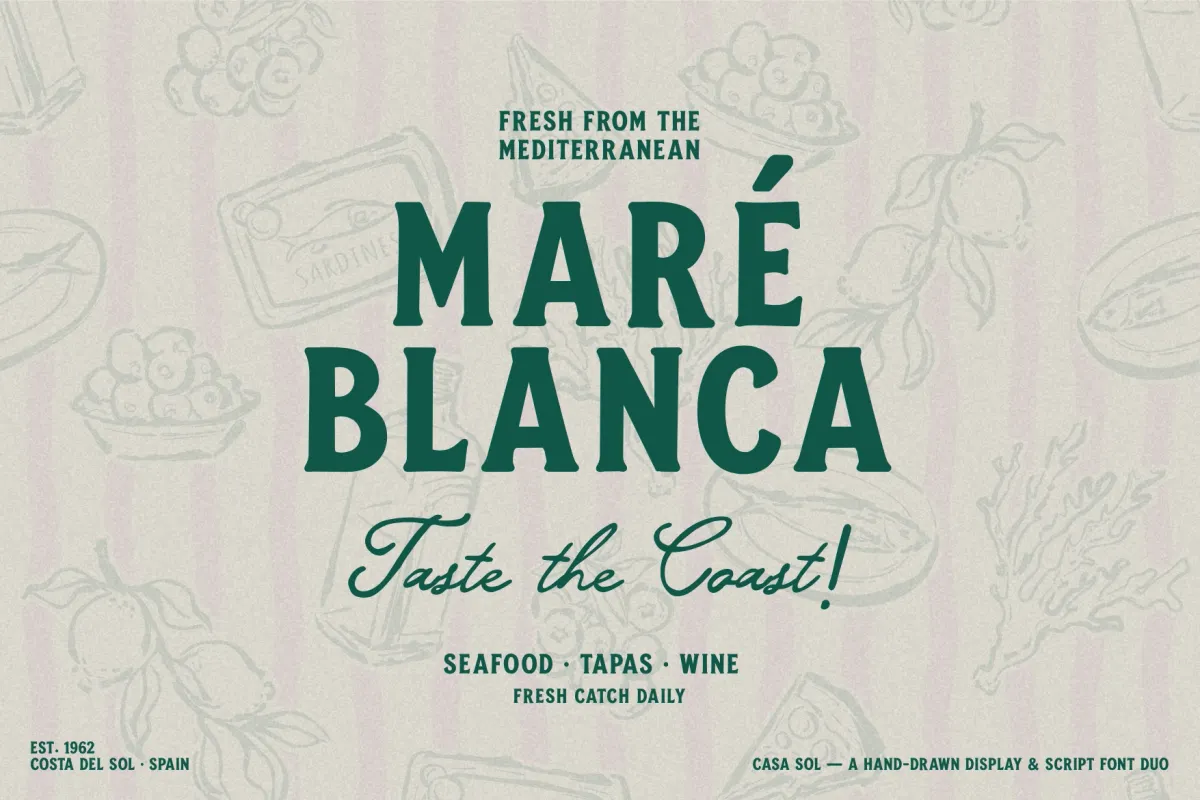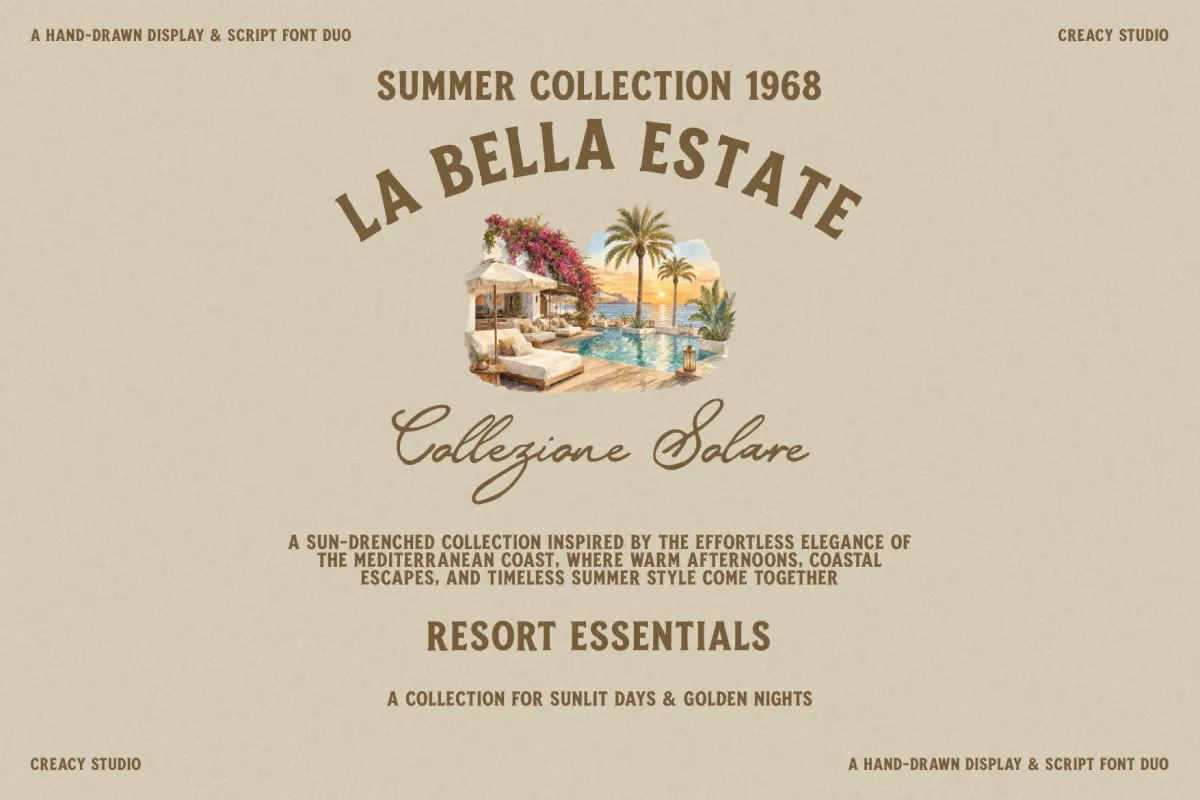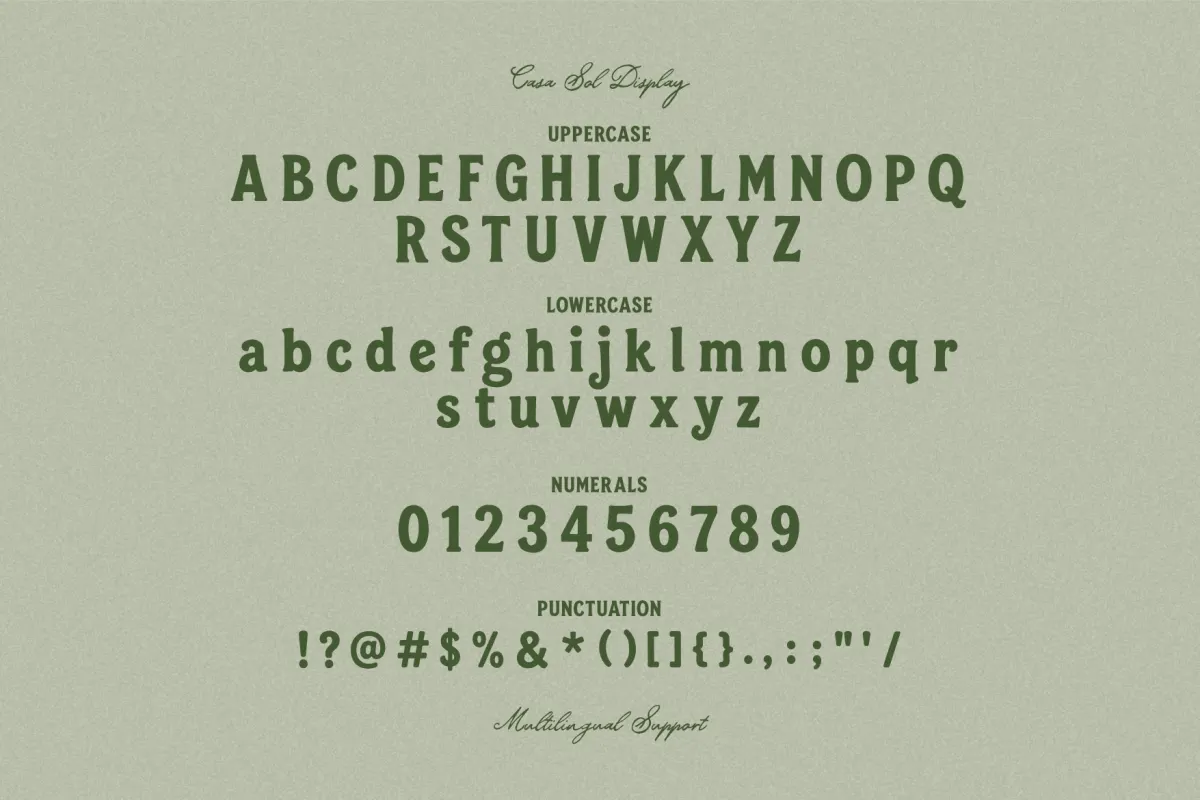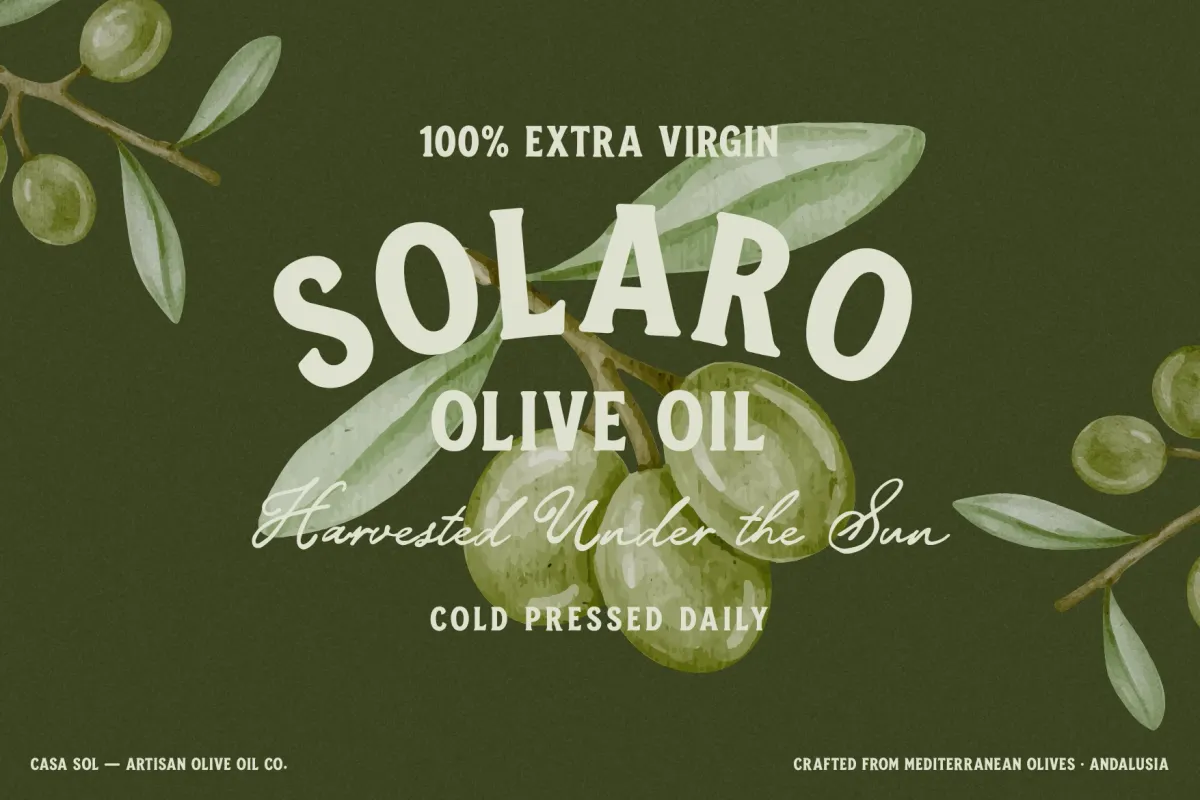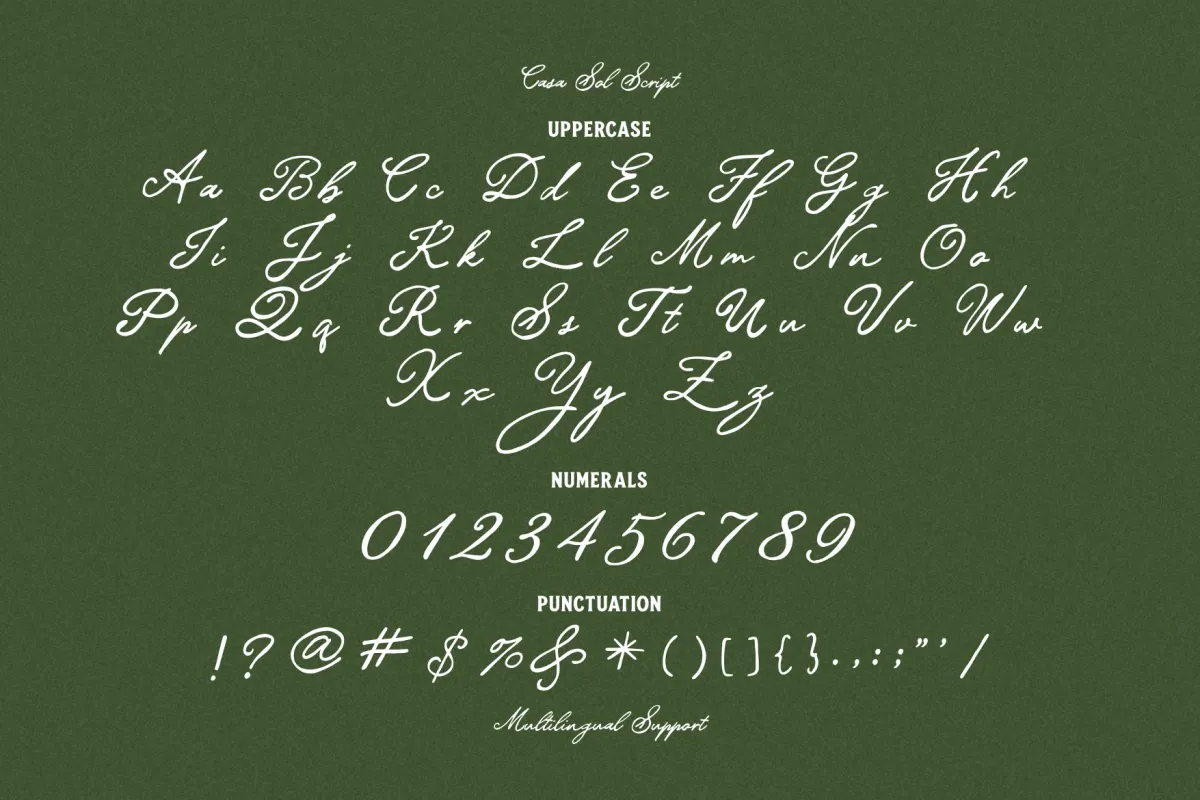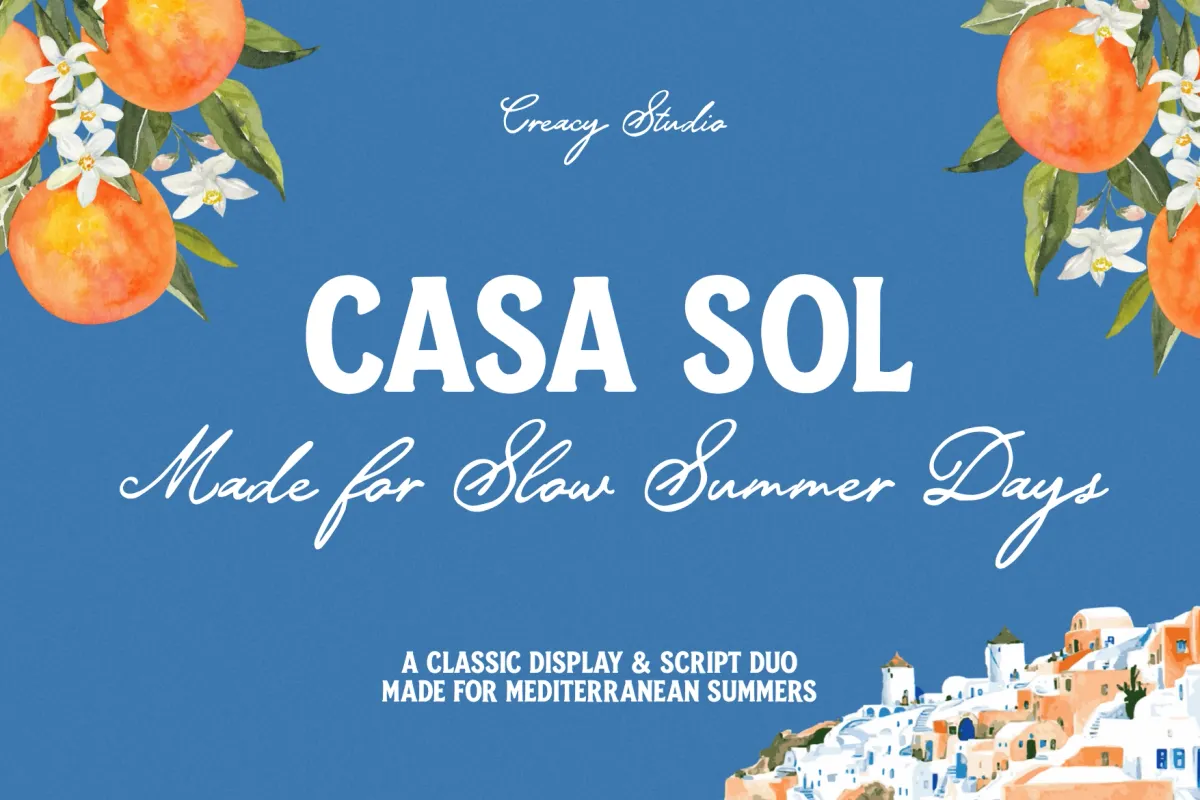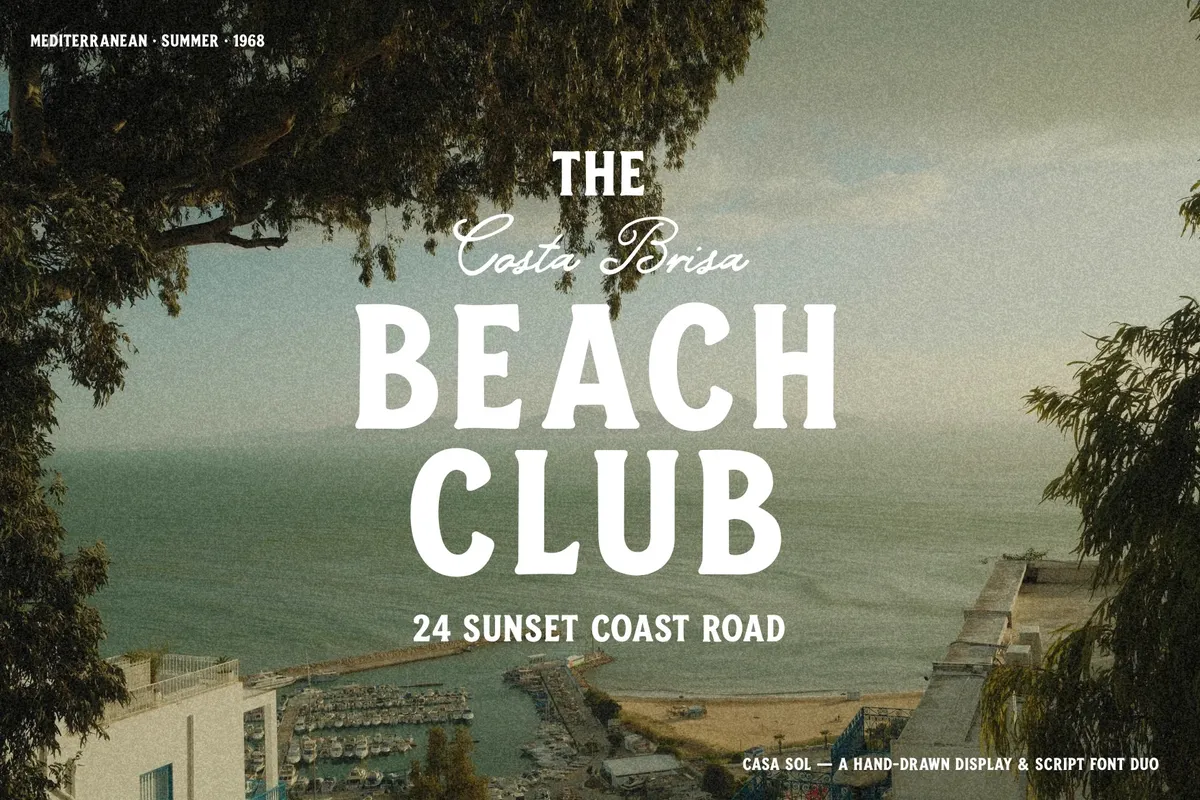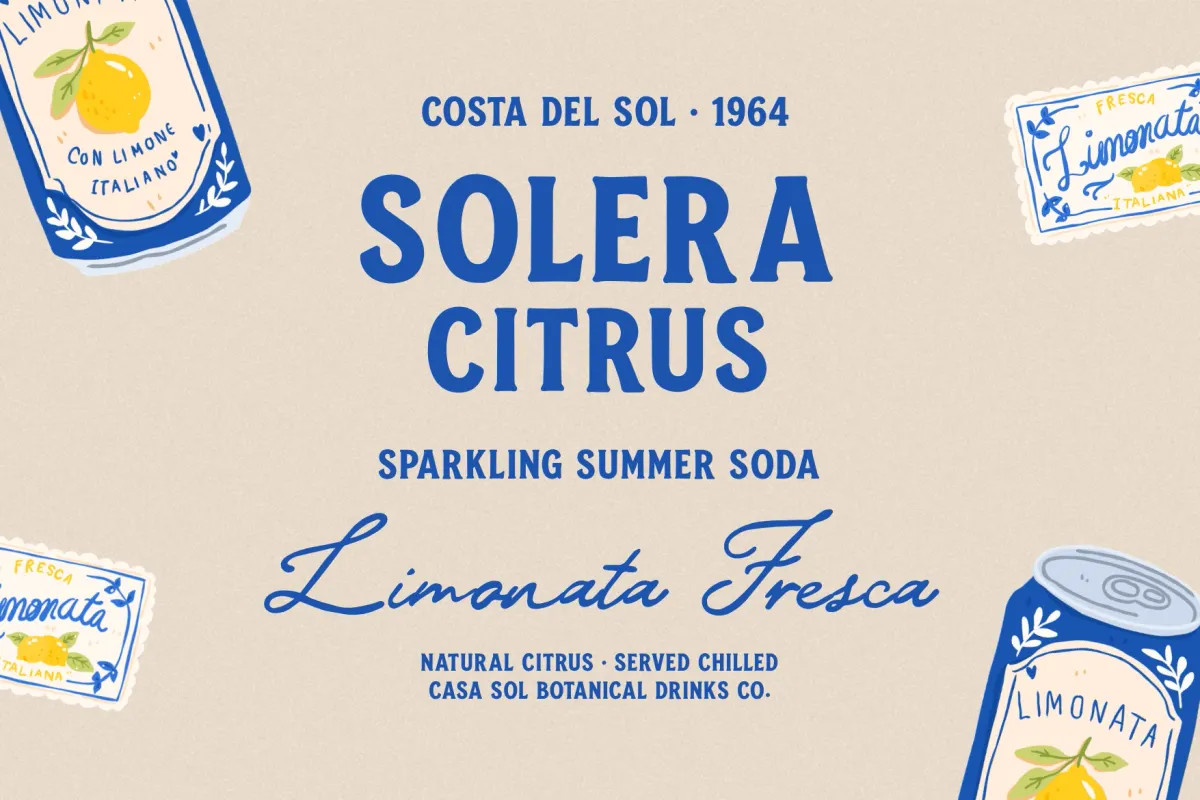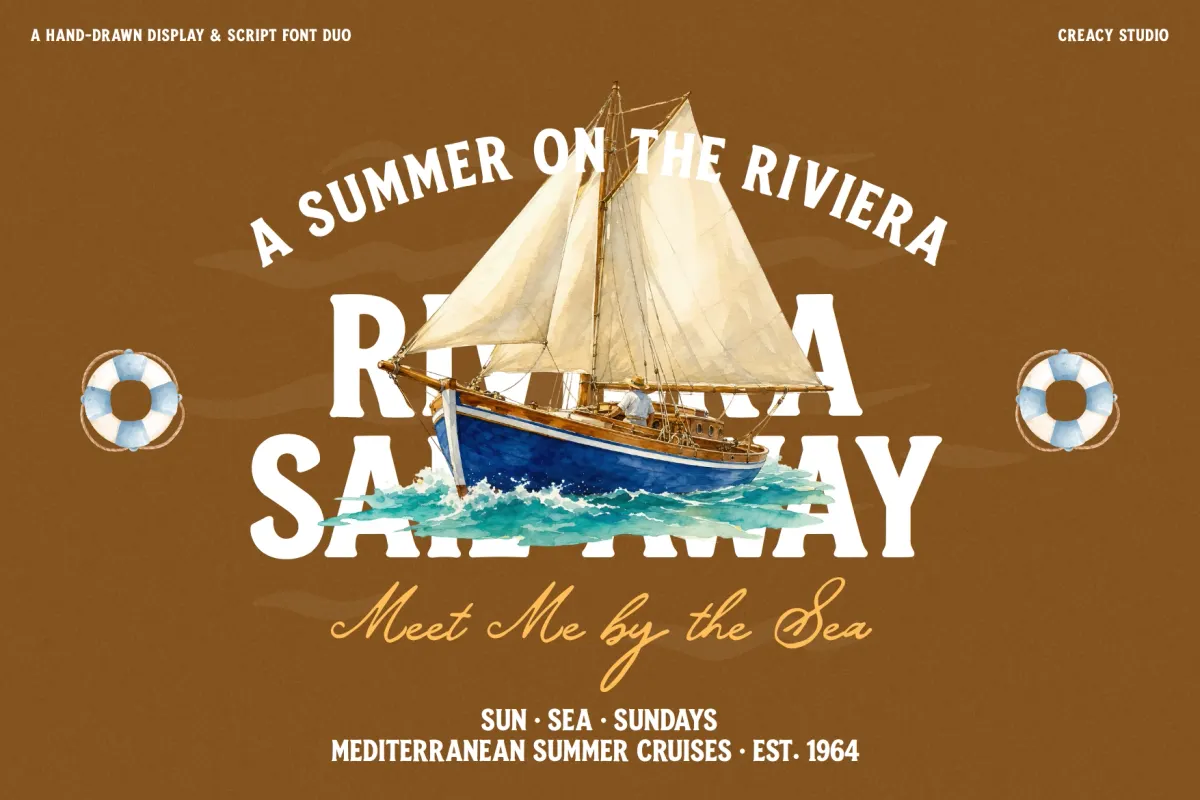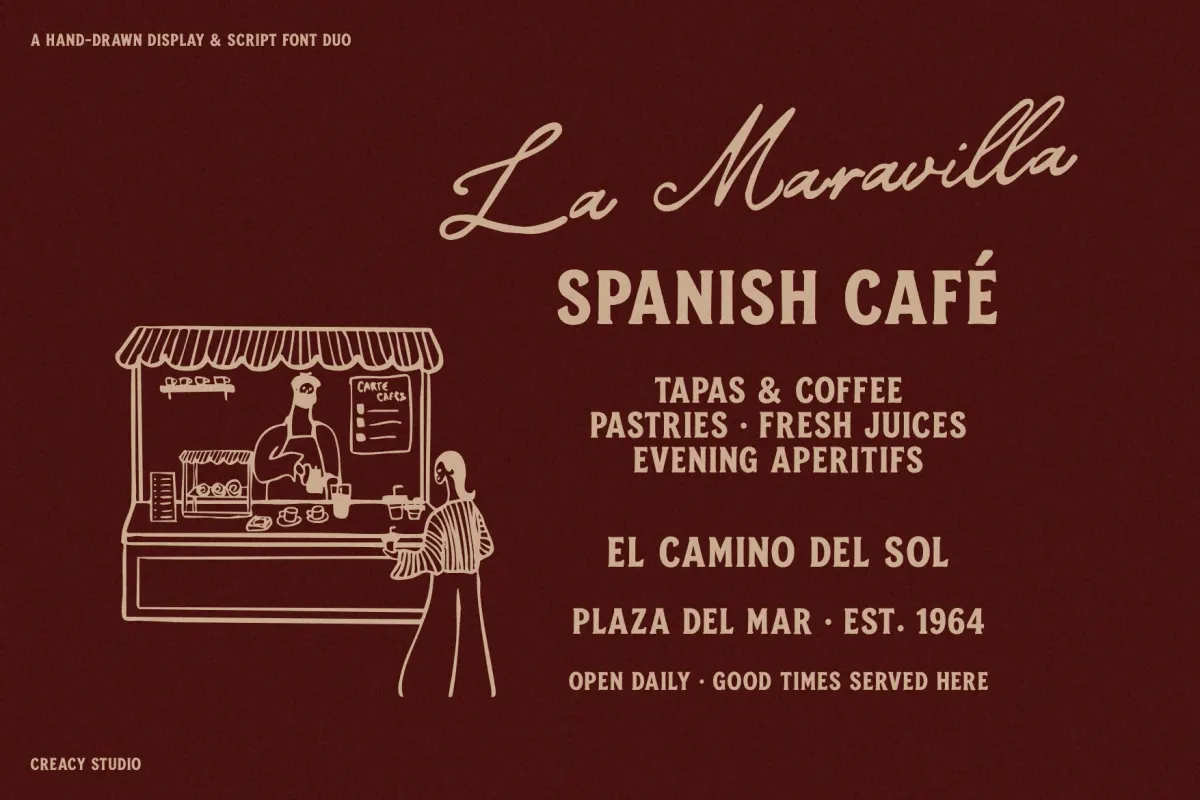
Casa Sol – Mediterranean Hand-Drawn Font Duo
Casa Sol pairs a bold hand-drawn display with a loose, looping script font, both lettered with the same sun-bleached, slightly uneven hand. The display carries thick, hand-painted strokes that read as taverna signage more than studio type, while the script trails off in long connecting swashes closer to a handwritten postcard than formal calligraphy.
The pairing sits best where one line needs weight and the next needs warmth — a headline in Display, a tagline or signature in Script. Use it for restaurant and café branding, olive oil and wine labels, resort and boutique hotel signage, market and apparel graphics, and summer event promotions.
• display & script font duo;
• uppercase & lowercase;
• numerals, punctuation & symbols;
• ligatures;
• multilingual support